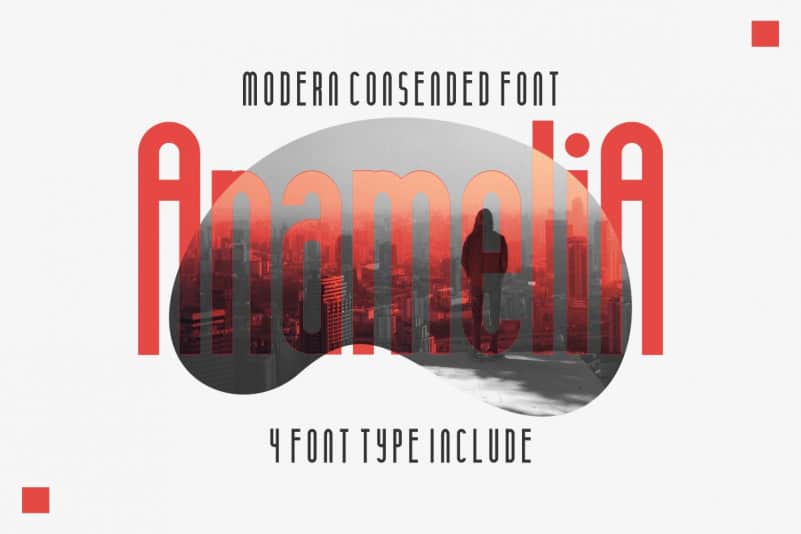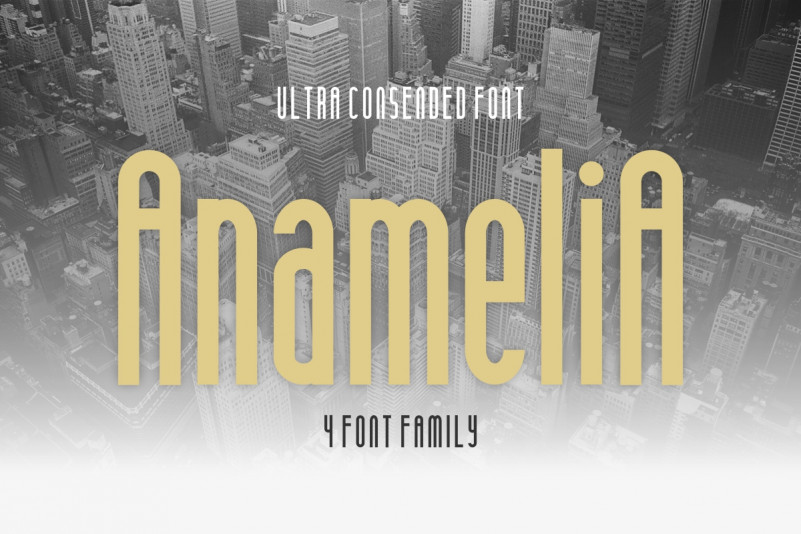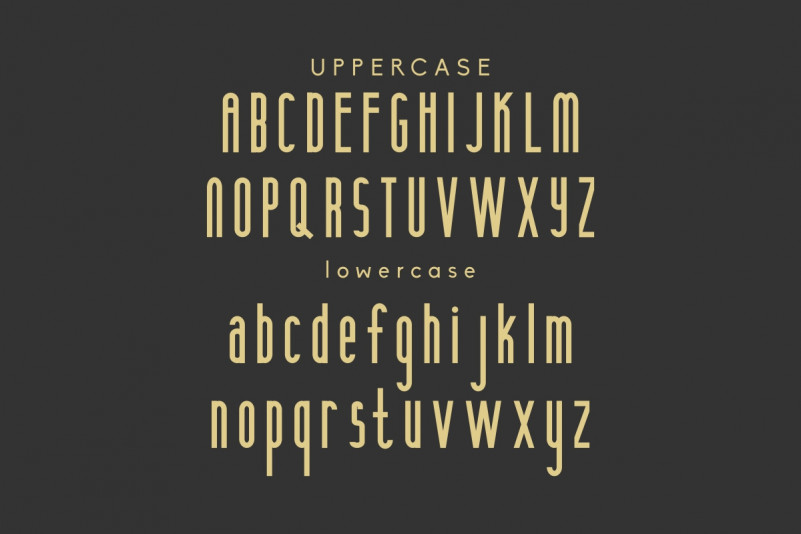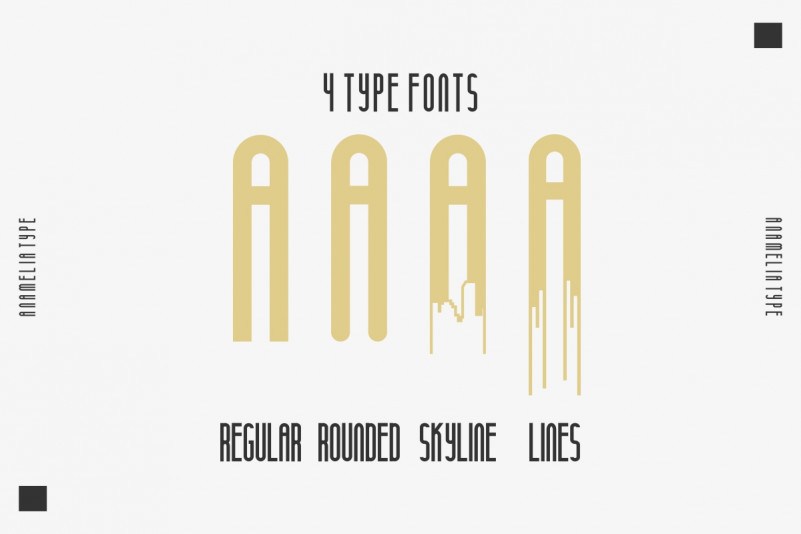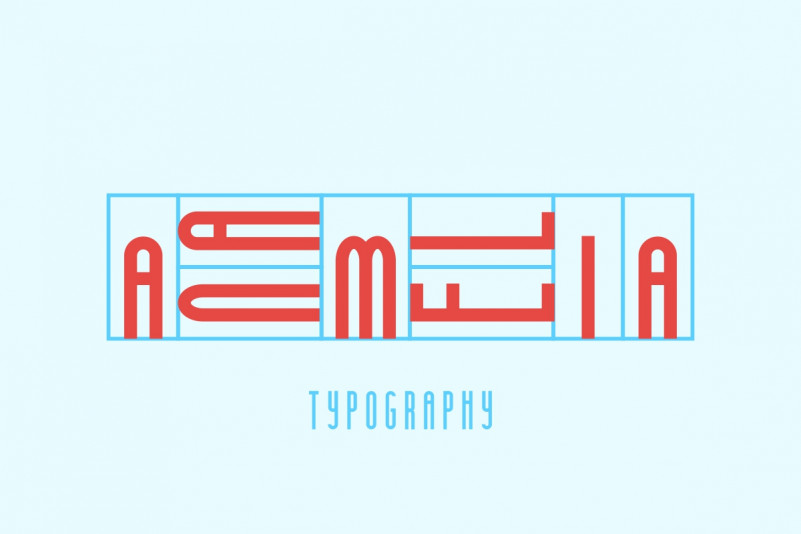
Anamelia Typeface
Introducing our newest font : Anamelia Typeface! This is a new futuristic city modern sans serif display font. It has a unique , and stylish glyph. Will be great for branding, logo, stationery, business card, signage, flyer, brochure etc. There are many industries that is suitable for this font : construction, real estate, services, law firm,music, salon, architect, designer etc
Anamelia Sans Serif Display Font